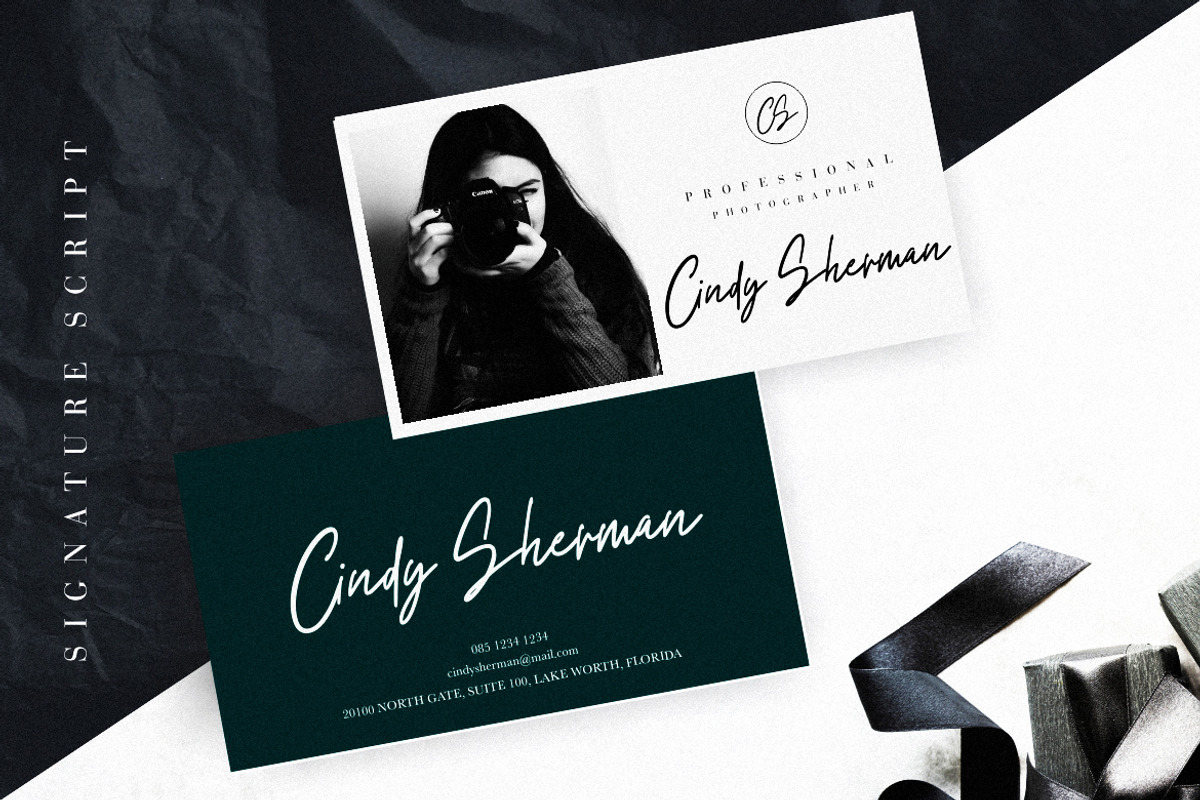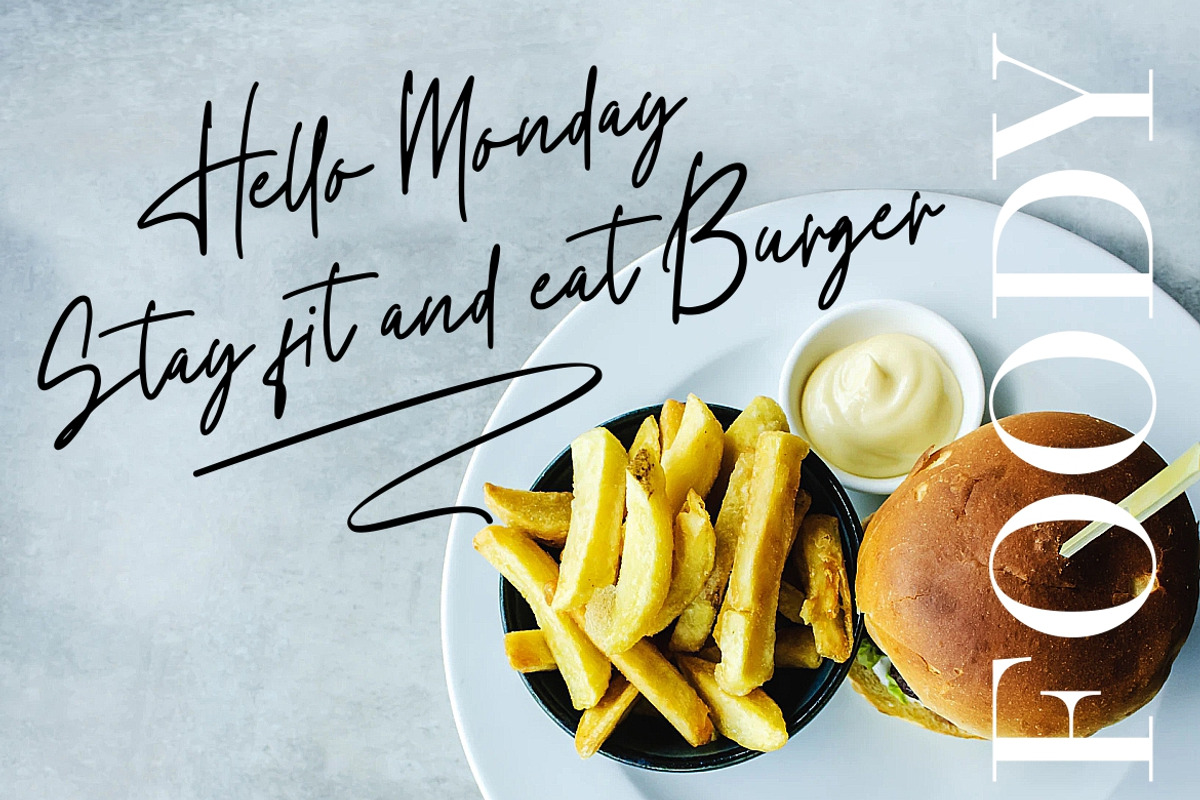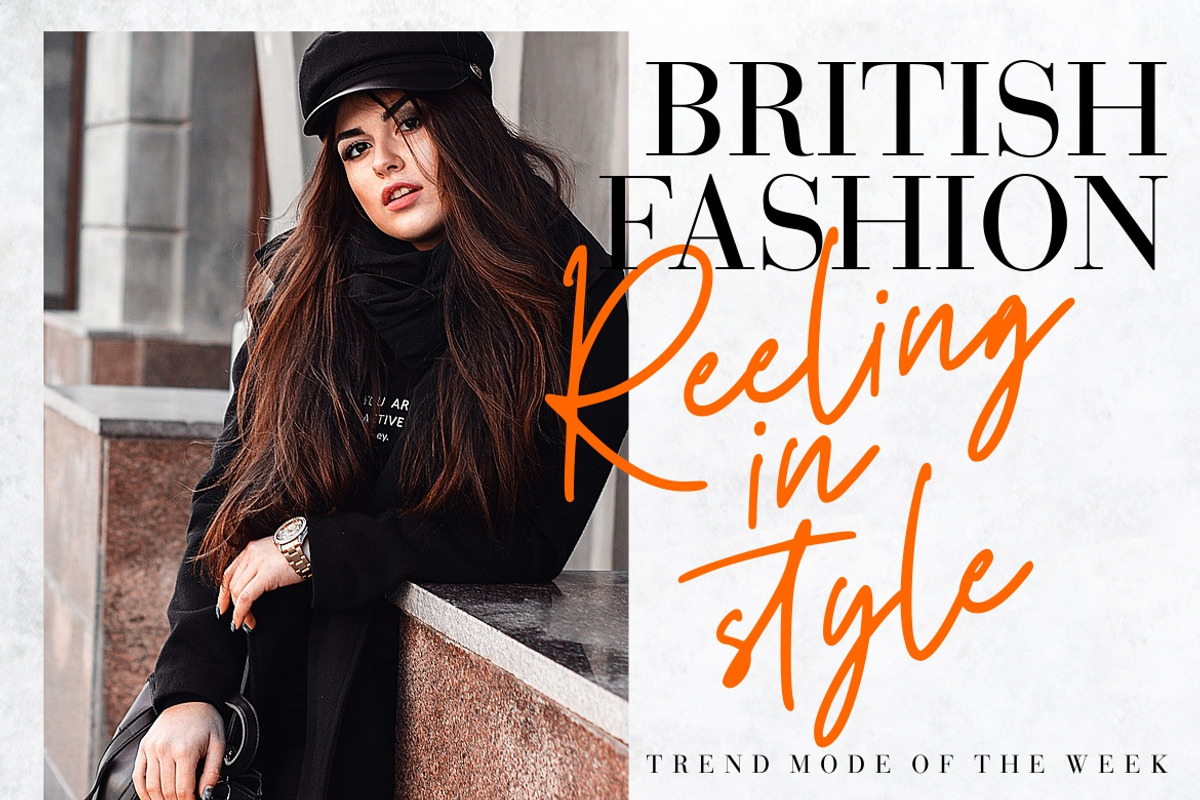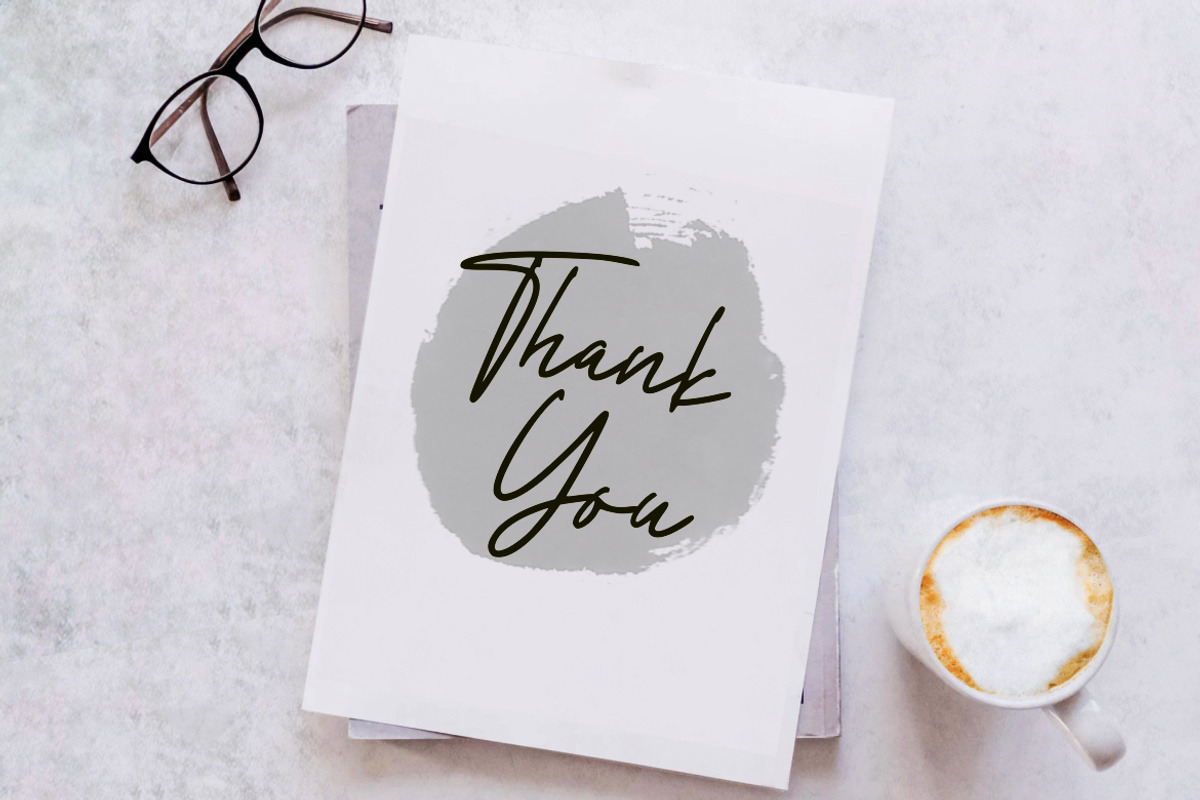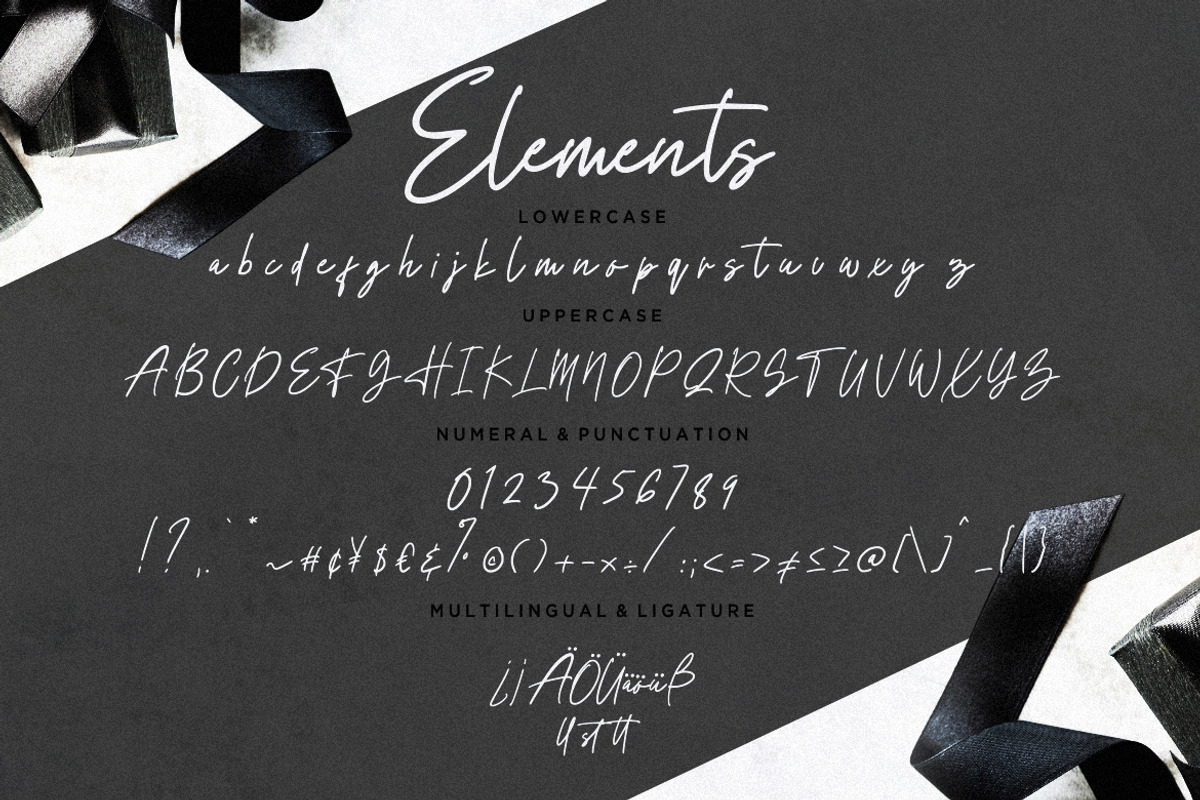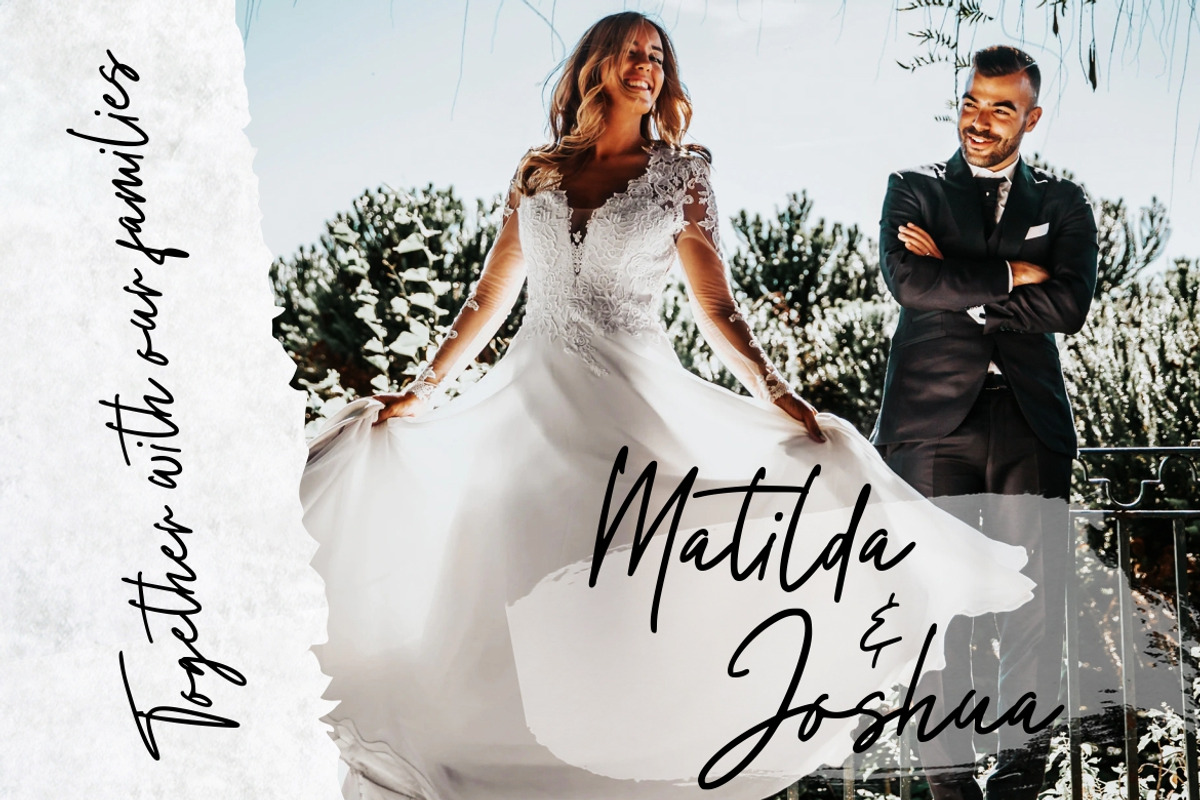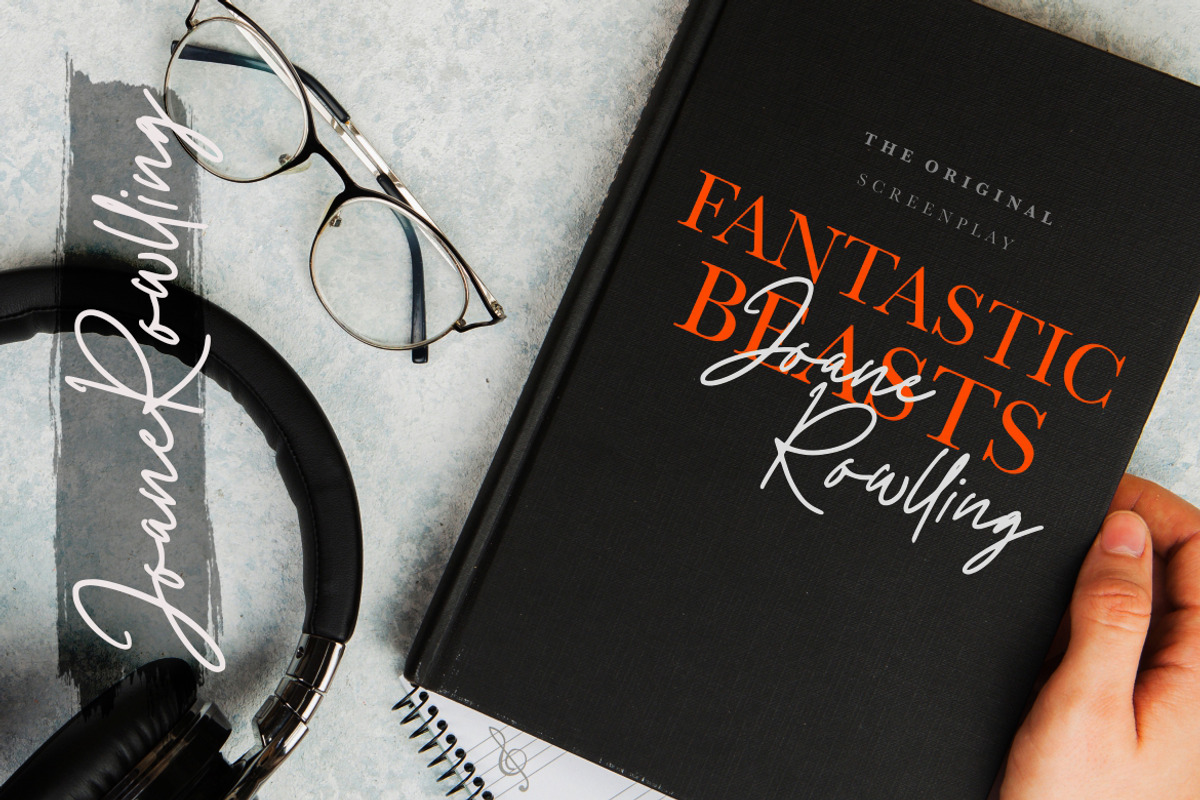
Elements Signature Business Font
Elements is signature script font with sophisticated and stylish handwritten.
Elements is perfect for branding projects, logo, wedding designs, social media posts, advertisements, product packaging, product designs, label, photography, watermark, invitation, stationery and any projects that need handwriting taste.
Elements Signature Business Font by Creatype Studio fits naturally into Branding, posters, packaging, typography.